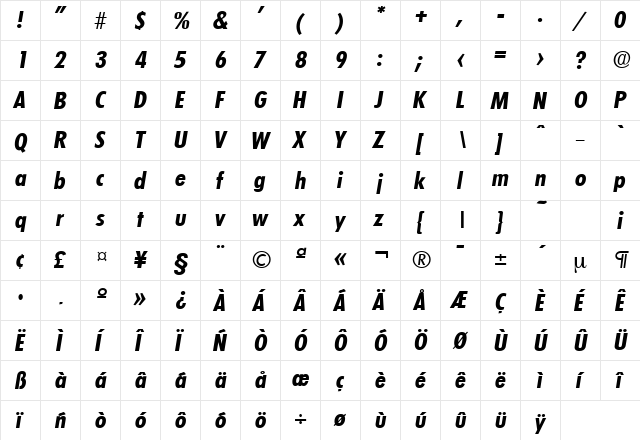
LimerickCond-Serial BoldItalic Font Preview
Design Context for LimerickCond-Serial Typeface
LimerickCond-Serial is a composed and adaptable typeface that performs quietly and consistently across a wide range of design contexts. The slanted form adds forward momentum and visual energy. Its bold stroke weight gives it real presence on the page. The condensed width makes it efficient for tight spaces without sacrificing legibility.